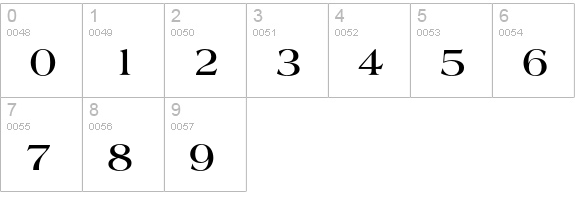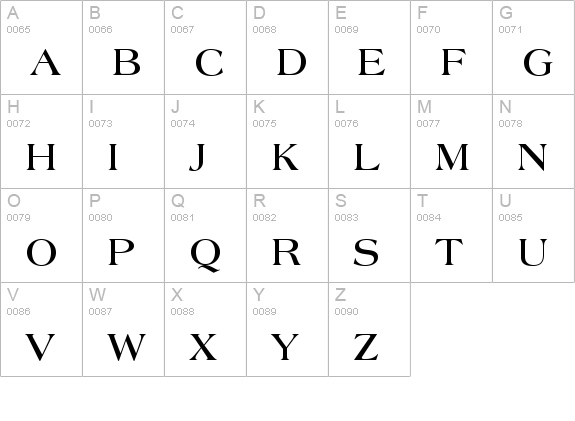
Americana Std Bold is a strong, high-contrast variant in the Americana typeface family \xE2\x80\x94 well suited to headlines, attention-grabbing titles, and strong calls-to-action.
Americana Std Bold is a versatile and classic font that exudes strength and stability. With its bold and prominent appearance, this typeface is perfect for creating eye-catching headlines, titles, and signage. The strong and sturdy design of Americana Std Bold makes it a popular choice for projects that require a bold and impactful look. What sets Americana Std Bold apart is its timeless appeal and wide range of applications. Whether you're designing a vintage-inspired poster, a modern logo, or a sleek website header, Americana Std Bold is sure to make a statement. The clean lines and sharp edges of this font give it a professional and polished look that is both stylish and easy to read. Best of all, Americana Std Bold is available for free download at FontsMarket.com. This means you can easily access this high-quality font and use it in your projects without any cost. So why wait? Add a touch of boldness and sophistication to your designs with Americana Std Bold today!